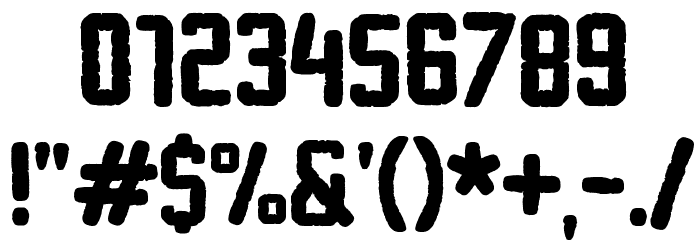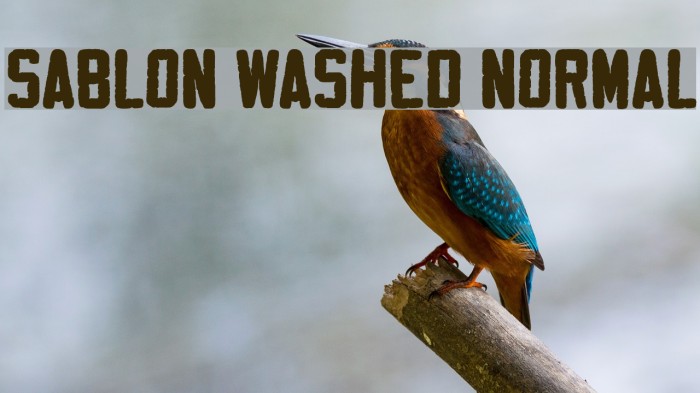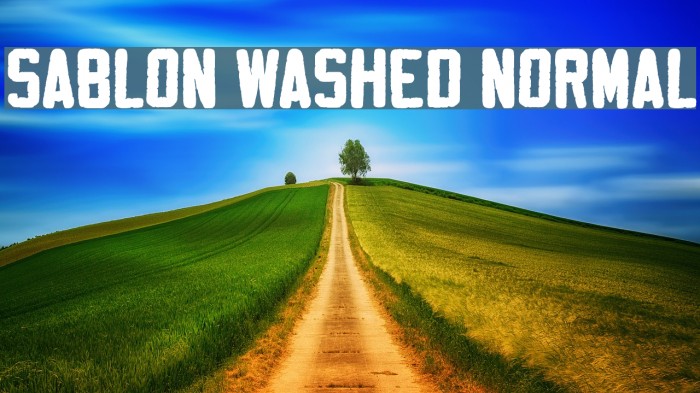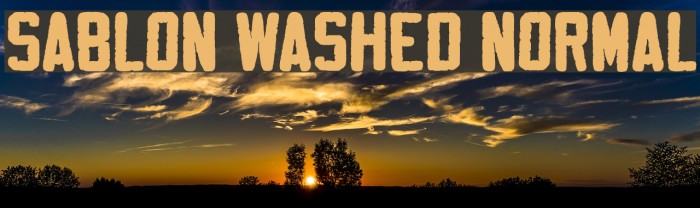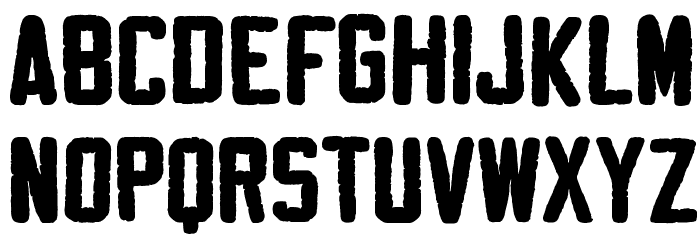
Sablon Washed Normal Font
Sablon Washed Normal Description
This font exhibits a bold and rugged style, characterized by its distressed and textured appearance. The letters are uniformly bold, with a slightly roughened edge that gives them a worn, vintage feel. The uppercase and lowercase letters maintain a consistent height, contributing to a cohesive look. The numbers and special characters share the same textured quality, ensuring a unified design across all glyphs. This font's unique style makes it ideal for projects that require a strong, impactful visual presence.
A bold, textured font with a rugged, vintage appearance from Uncategorized fonts.
- Overall Style: Vintage